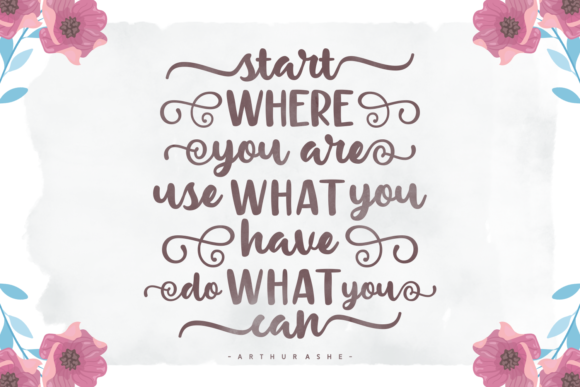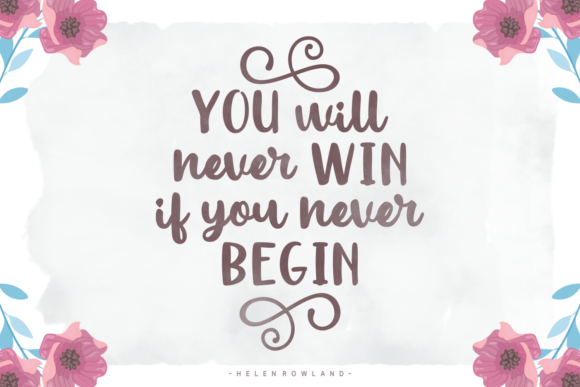
Handcrafted Goods Font
About Handcrafted Goods Font
The Handcrafted Goods is an unique typeface. It has a strong look while still keeping an elegant vibe. Included are amazing swashes and swooshes which can be used to give its bold letters a playful touch.